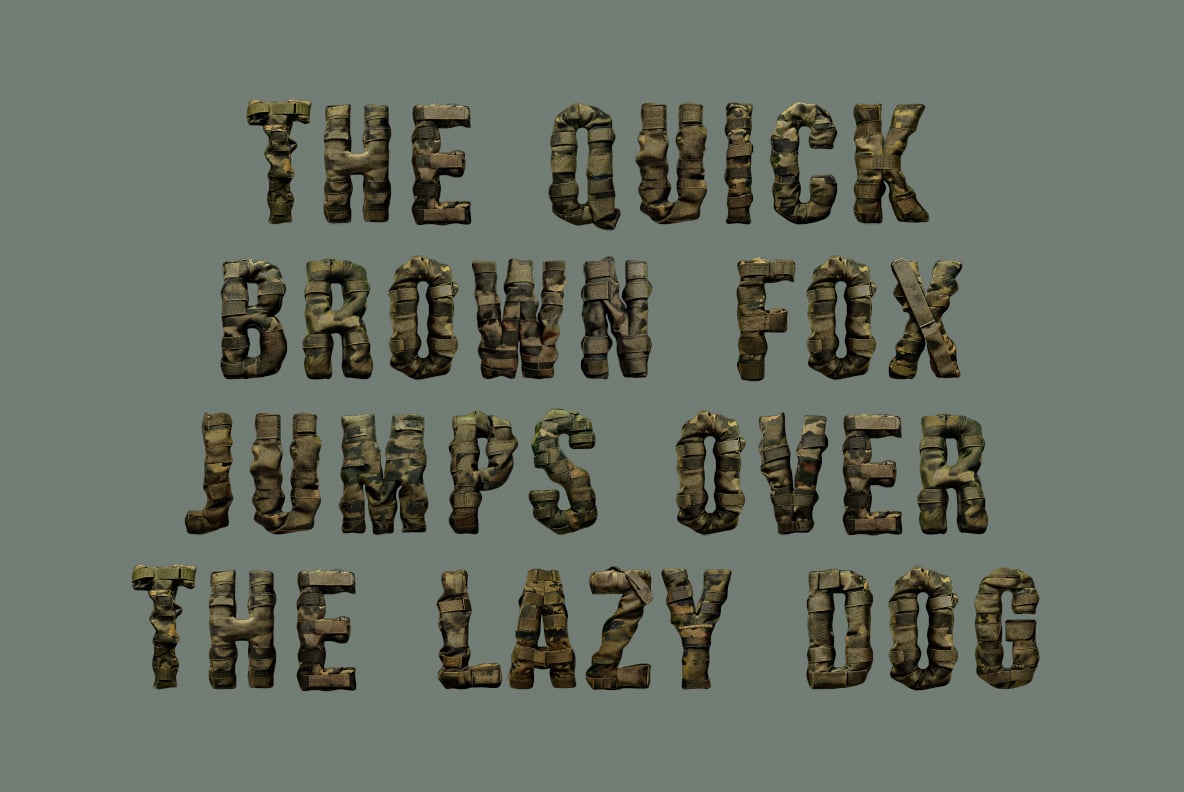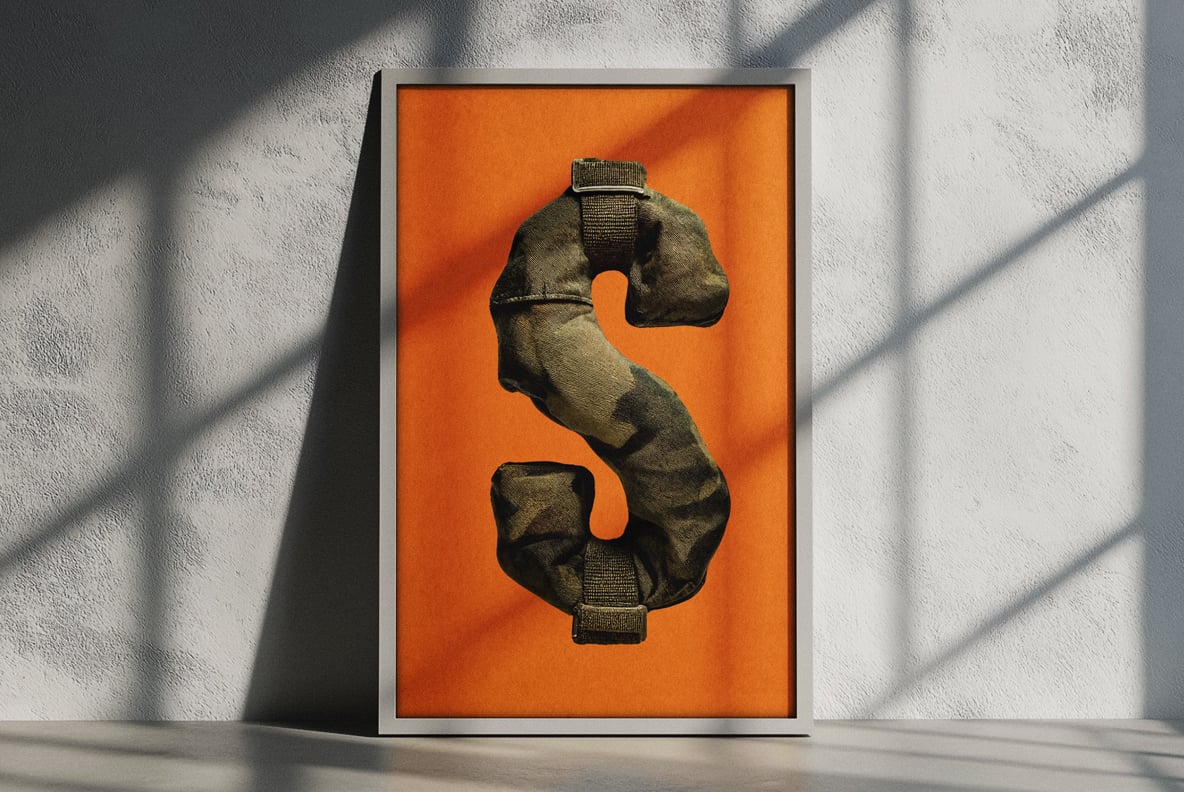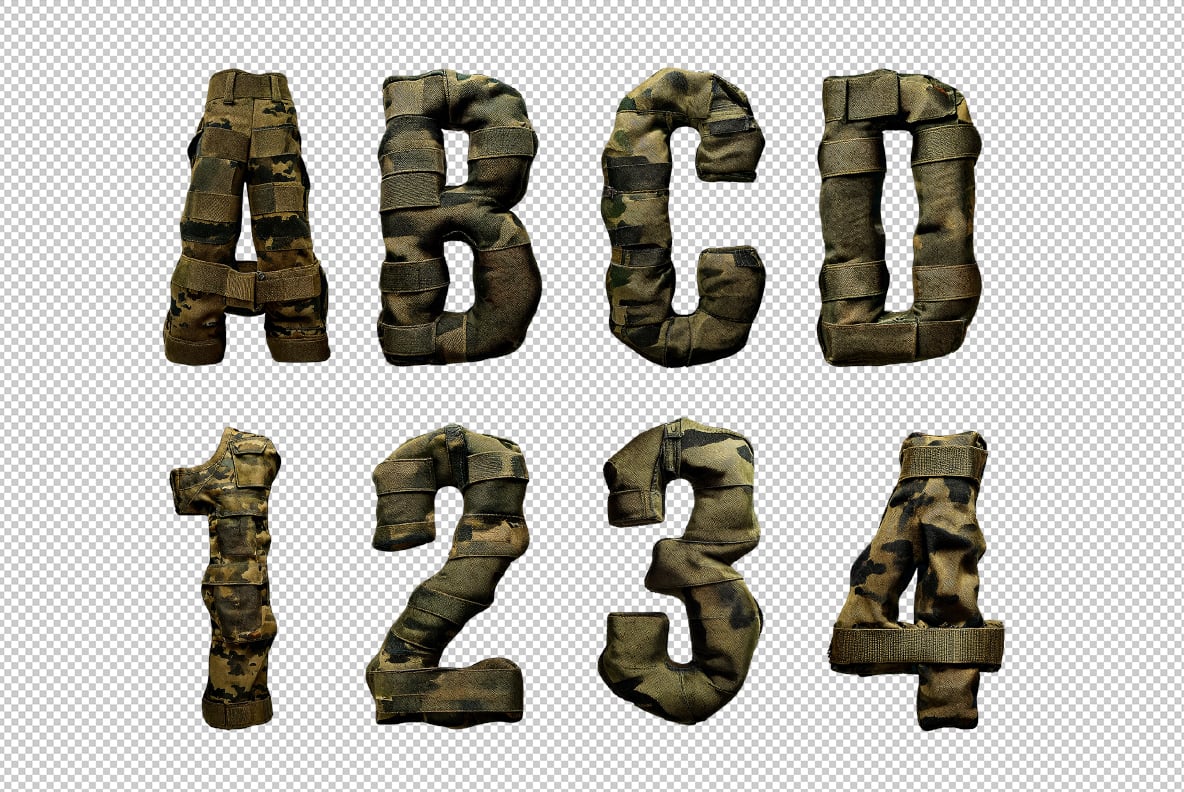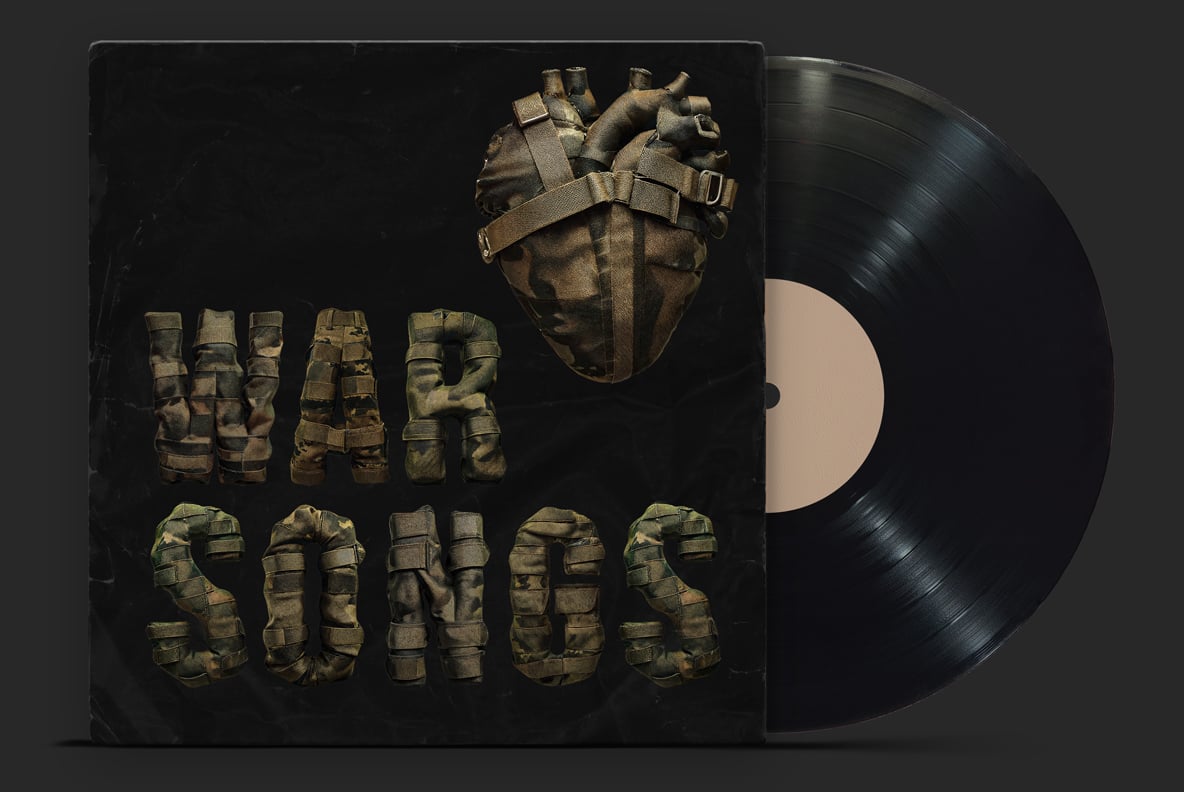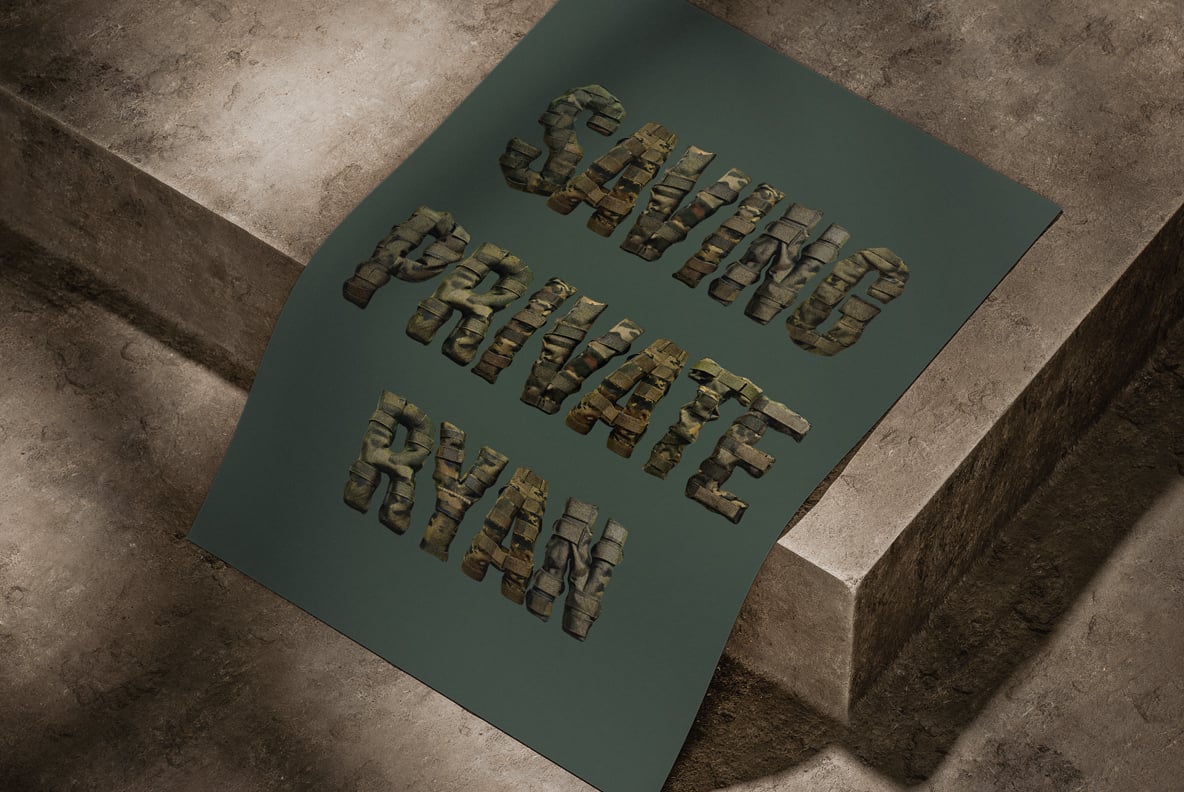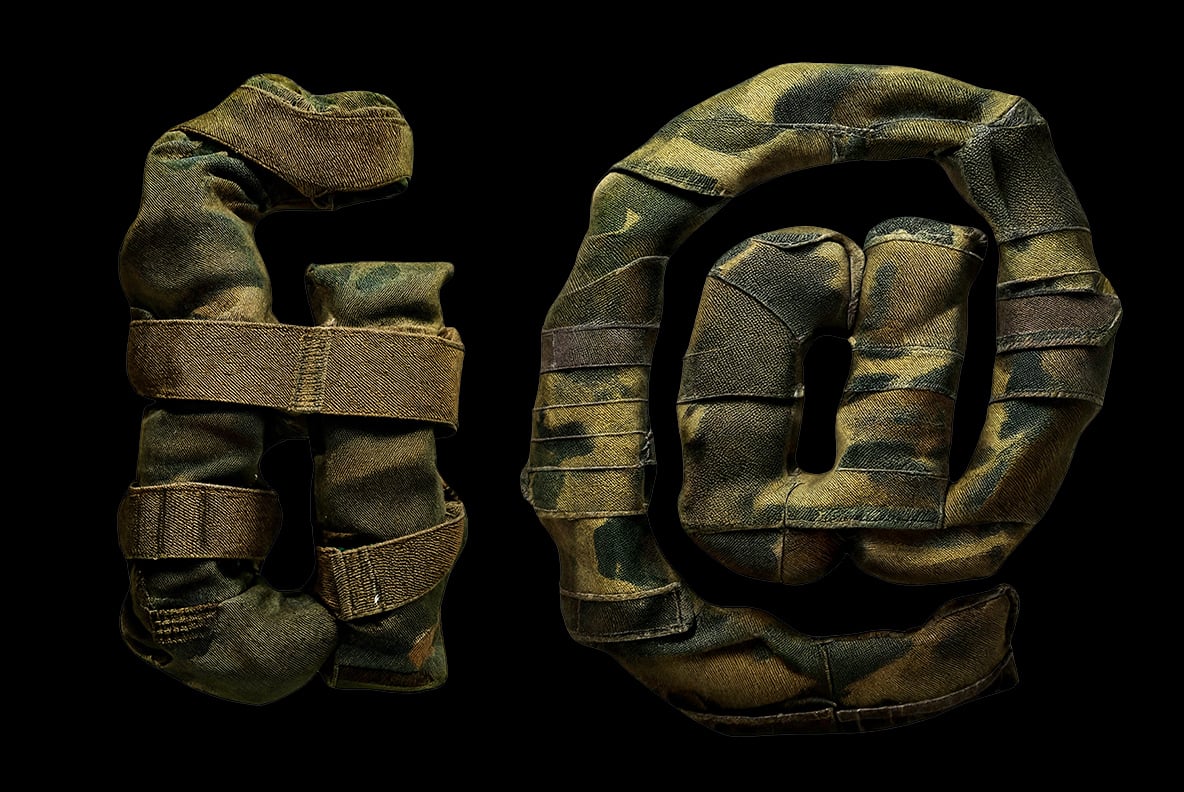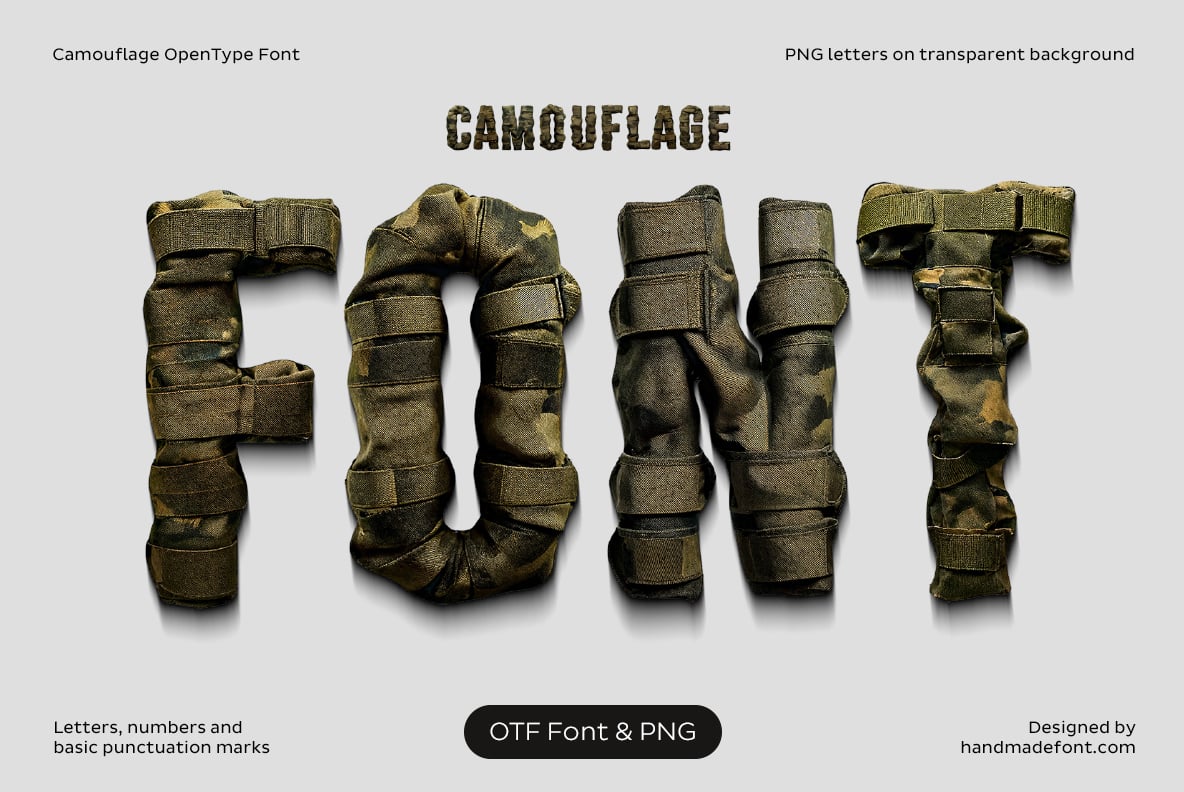
Camouflage Font
Camouflage Font is a bold and rugged typeface crafted entirely from military camouflage fabric. Each letter looks like it’s been stitched together from tactical gear—bulky, padded, and battle-worn. The texture captures the grit of military apparel, with realistic folds, Velcro straps, and camouflage patterns adding an authentic, field-tested feel. This is not a font for the faint-hearted—it’s made for designs that march to the beat of their own drum. Perfect for projects involving war themes, soldier aesthetics, survival games, or anything that demands a tough, military-grade visual identity. Camouflage Font is where typography meets the frontline.